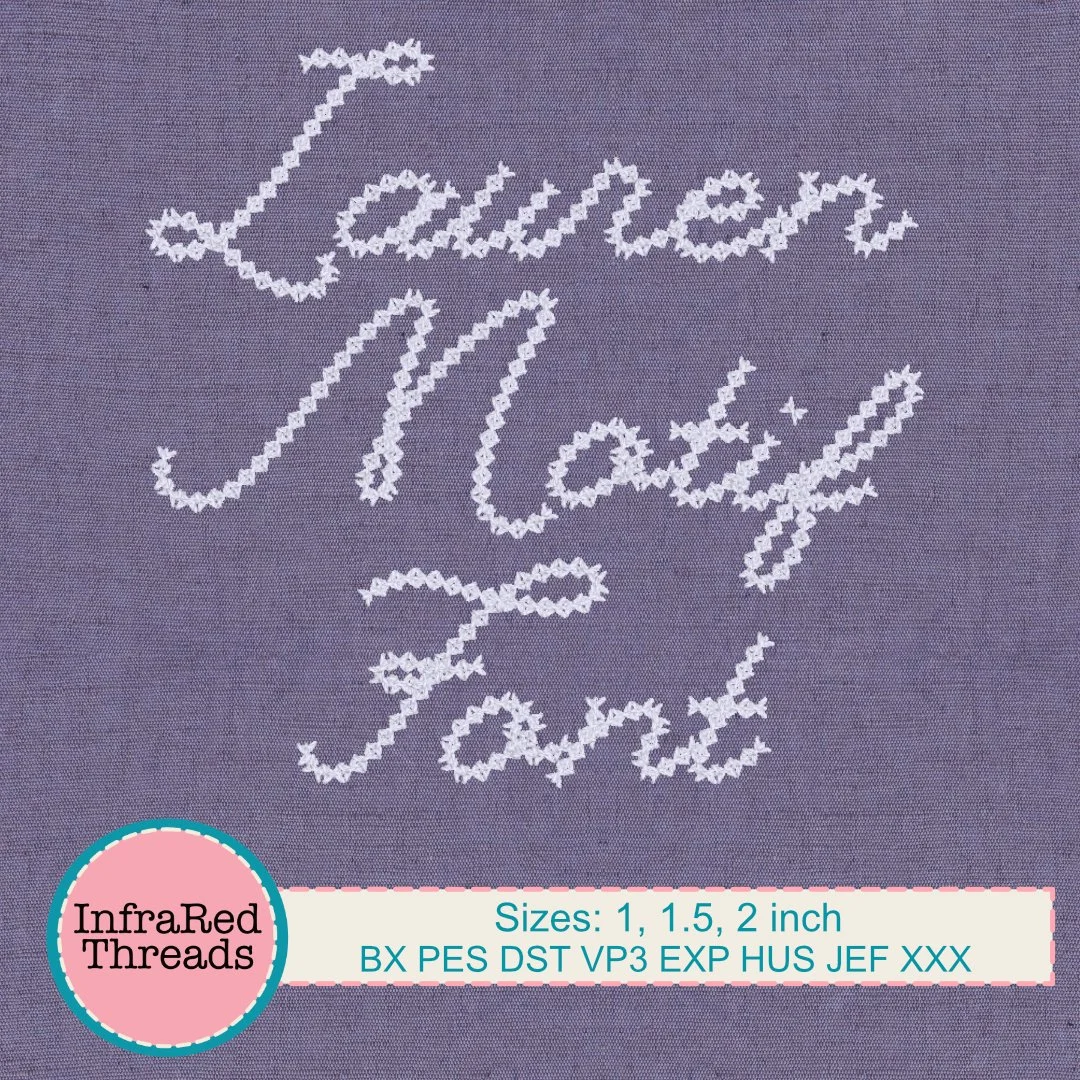
Embroidery Designs Lauren Motif Embroidery Font – Chain Stitch Script Alphabet in 3 Sizes
Lauren Motif embroidery font in lavender chain-style script lettering Image 1 of 2
Lauren Motif embroidery font in lavender chain-style script lettering
The Lauren Motif Font is an elegant chain-style embroidery alphabet with a soft script flow and decorative motif stitch pattern. This font is perfect for monograms, signature-style names, or refined project labels. The unique chain-stitch appearance adds texture and a touch of vintage charm, making it ideal for wedding gifts, personalized linens, or boutique branding. Includes uppercase and lowercase letters in three popular sizes, plus BX format for easy typing in Embrilliance software.